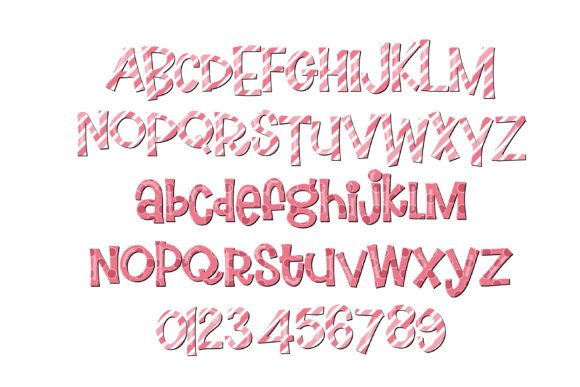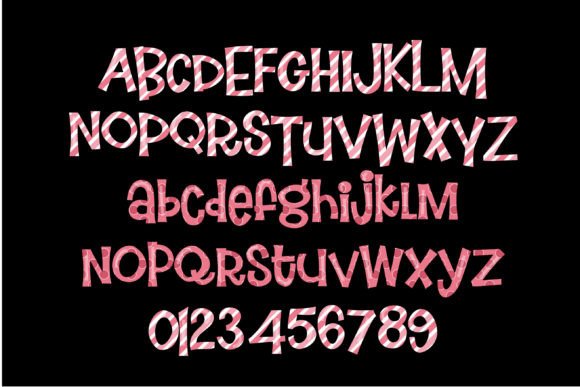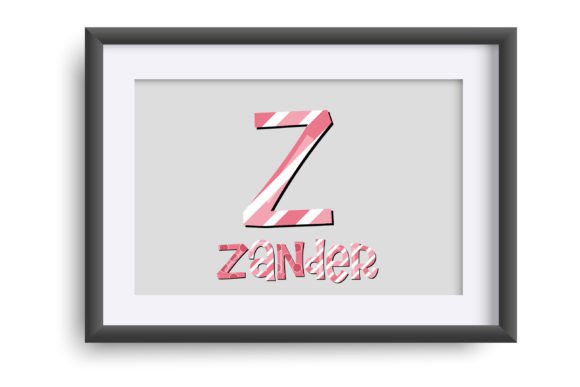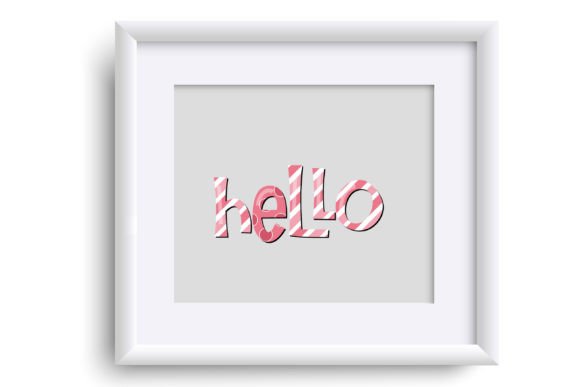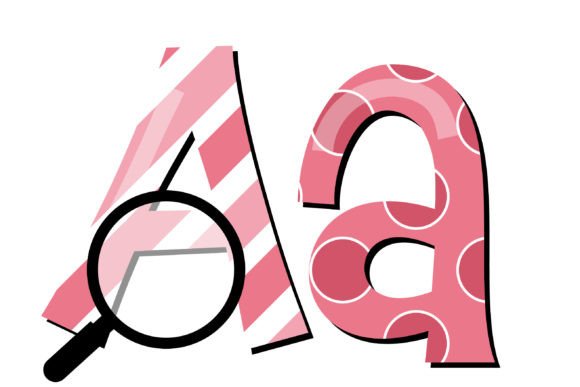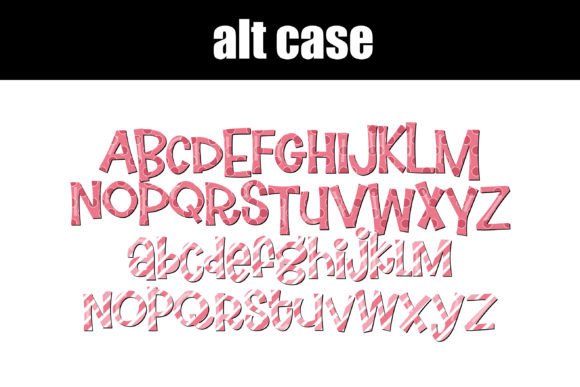
Introduction to Jolly Pinks Font
This full-color font features whimsical style lettering in pink stripes and polkas.
There is an alt version of each letter in a different color that you can access through your system or Silhouetteโs character map If you are looking for a versatile, high-quality font that can be used for a variety of projects, then a full-color SVG font is the perfect choice for you.
Key Features of Jolly Pinks Font
Why Choose Jolly Pinks Font?
Jolly Pinks Font offers exceptional quality and versatility, making it a valuable addition to your design toolkit. Whether you’re creating for personal projects or commercial use, Jolly Pinks Font delivers professional results.